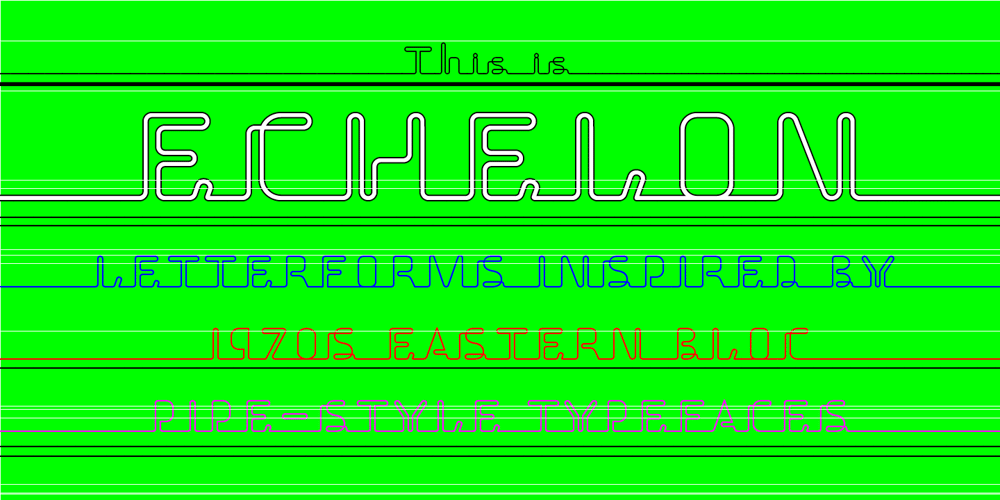
Echelon
Echelon font
Echelon Font Family was designed by Marcus Leis Allion, Jonathan Barnbrook and published by Barnbrook Fonts. Echelon contains 1 styles and family package options. Echelon is based upon 1970s Eastern European ‘pipe-style’ typefaces. This style of Communist consumer typography came from what, at the time, seemed like a bizarre mirror universe: Existing alongside the West, similar-but-different, essentially unknowable. Even though the letterforms had the same historical origins as their Western equivalents, they also had their own bizarre fashionable/unfashionable aesthetic. The parallels between the surveillance practices of the Soviet Union and those of today’s Western governments informed the naming of this typeface. Echelon is the codename for a massive international surveillance system that collects and processes data from communications satellites. It can eavesdrop on telecoms and computer systems, it can track bank accounts. It can record and store information on millions of individuals.